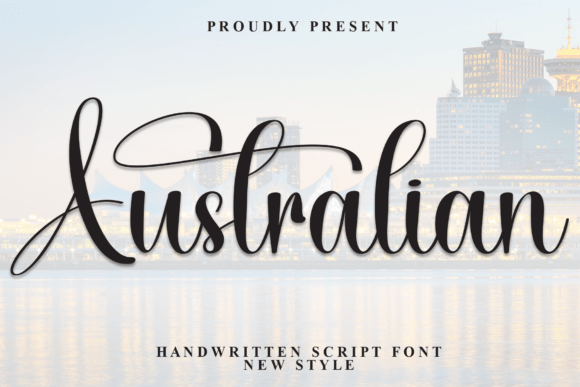
The Australian Font: A Touch of Elegance for Your Designs
I’ll never forget the time I was working on a wedding invitation project, and my client asked for a font that would make their special day feel truly unforgettable. I scoured the internet, tried out countless fonts, but nothing seemed quite right. That was until I stumbled upon the Australian Font. Its elegant, flowing curves and charming swashes instantly captured the romantic feel we were going for. In this article, I’ll share my experience with this beautiful script font and provide you with a comprehensive guide on how to make the most of it in your designs.
I’ve had the pleasure of working with the Australian Font on several projects, and here’s what I think:
- ✨ Elegant and sophisticated: This font brings a level of refinement to any design, making it perfect for weddings, branding, and high-end projects.
- ✅ Smooth curves and swashes: The font’s flowing curves and beautiful swashes add a touch of whimsy and romance to your text.
- ✅ Versatile: The Australian Font works beautifully for both headings and body text, making it a great addition to any design toolkit.
Now, I’m not going to sugarcoat it – there are a few quirks to be aware of:
- 🤔 Limited use of bold weights: While the font does come in a range of weights, the bold options can be a bit limited. This might make it less suitable for designs that require a strong, bold statement.
- ⚠️ Glyphs can be finicky: Some users have reported issues with glyphs and swashes not displaying correctly. However, this can usually be resolved by adjusting the font settings or using a different software.
The Story Behind the Australian Font
The Australian Font was designed by a talented team of typographers who wanted to create a font that would evoke the elegance and charm of the Australian landscape. Inspired by the country’s beautiful beaches, lush forests, and vibrant culture, they crafted a font that would bring a touch of sophistication to any design.
- Q: Is the Australian Font suitable for body text?
- A: While the Australian Font is primarily designed for headings, it can be used for body text in certain contexts. However, it’s recommended to use a clear, legible font for longer blocks of text.
- Q: Does the Australian Font come with a range of weights?
- A: Yes, the Australian Font comes in a range of weights, from light to bold. However, the bold weights can be a bit limited.